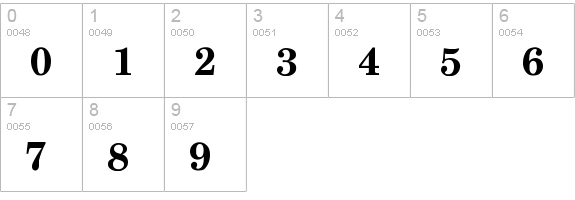
Schoolbook Bold Font Details
Schoolbook Bold is a strong, high-contrast variant in the Schoolbook typeface family \xE2\x80\x94 well suited to headlines, attention-grabbing titles, and strong calls-to-action.
Introducing Schoolbook Bold, a font that combines elegance and readability in a bold and commanding way. Perfect for capturing attention and making a statement, this font is ideal for headlines, titles, and any project that requires a strong and impactful typographic presence. Featuring clean lines and a modern yet timeless design, Schoolbook Bold is versatile and adaptable, making it suitable for a wide range of creative endeavors. Whether you're designing a logo, creating a poster, or crafting a website, this font will effortlessly enhance your visual compositions. But what truly sets Schoolbook Bold apart is its accessibility. We believe that great design should be available to all, which is why this font is freely available to download at FontsMarket.com. Now, you can unleash your creativity without any financial constraints, ensuring that your projects can be as remarkable as you envision them. With Schoolbook Bold, you'll experience the freedom to express yourself creatively and confidently. Its bold and impactful appearance will captivate your audience, leaving a lasting impression. So why settle for mediocrity when you can elevate your design with this exceptional font? Download Schoolbook Bold today from FontsMarket.com and unlock a world of infinite possibilities. Whether you're a professional designer or a passionate hobbyist, this font will empower you to create stunning visual experiences that leave a lasting impact. Don't miss out on this amazing opportunity to enhance your designs and make a bold statement – get Schoolbook Bold now and unleash your creativity.